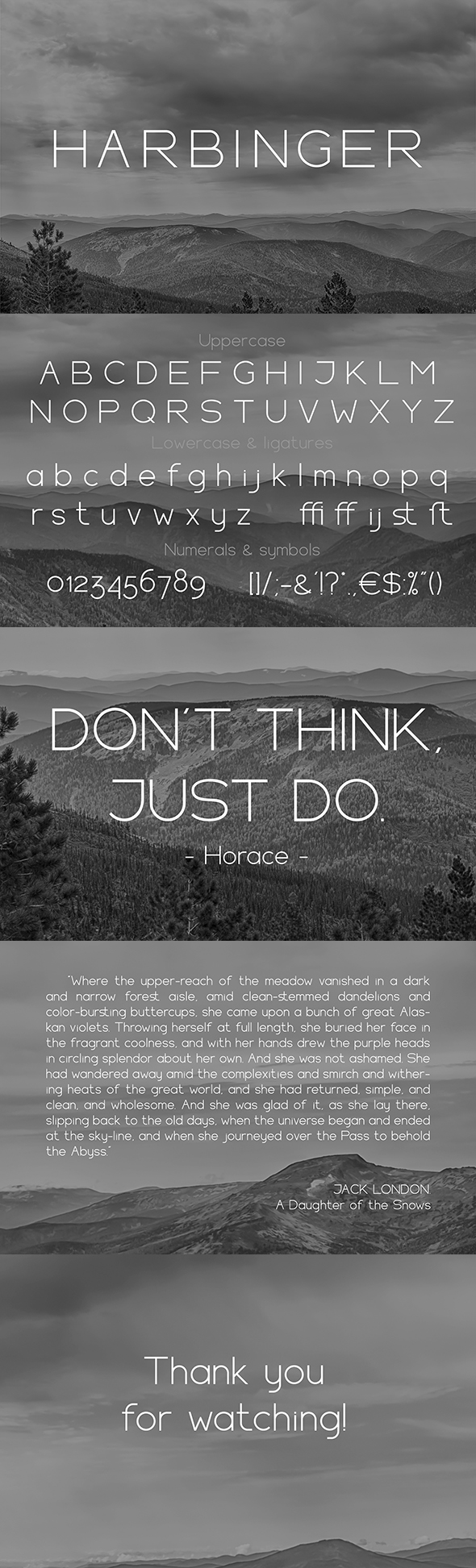
HARBINGER, sans serif font
Harbinger is a wide sans serif font that looks great in branding, headlines, logos, cards, banners, invitation, labels and any over design projects. This font was created with the Illustrator add-on Fontself Maker. Contains standard characters, uppercase, lowercase, numbers, punctuation, symbols and ligatures.